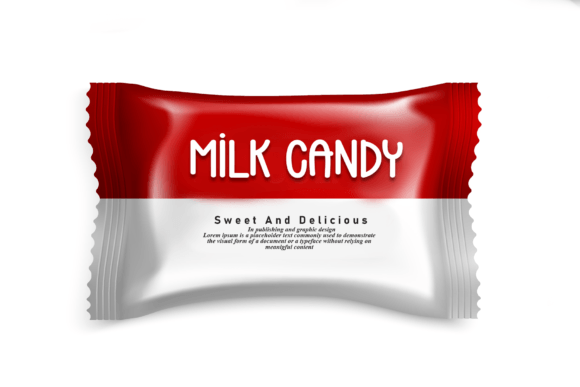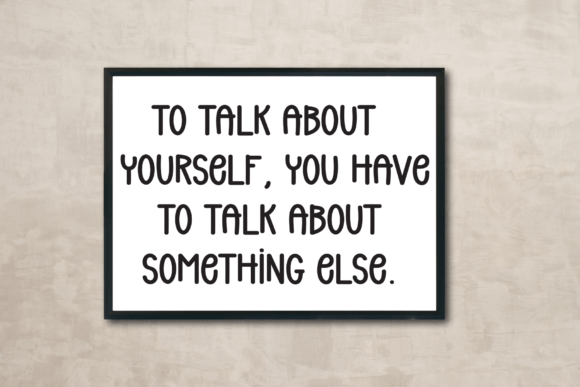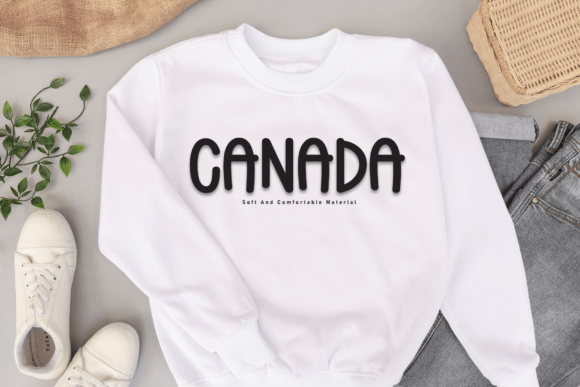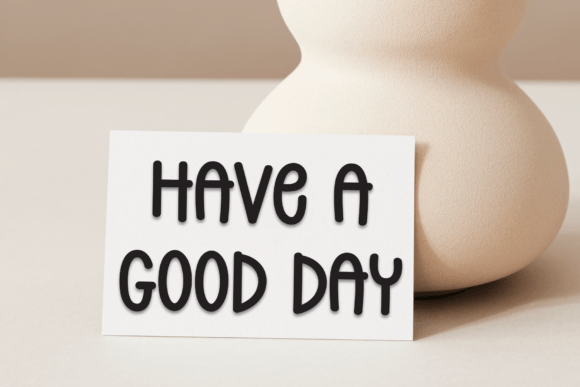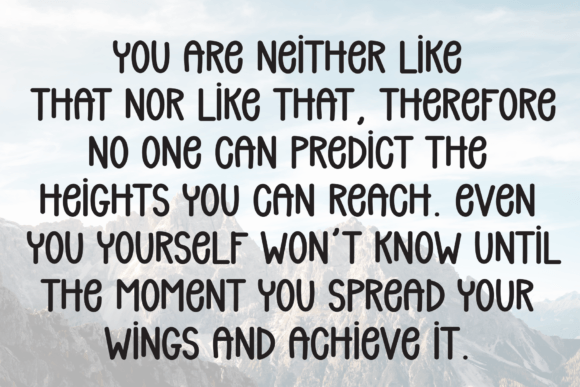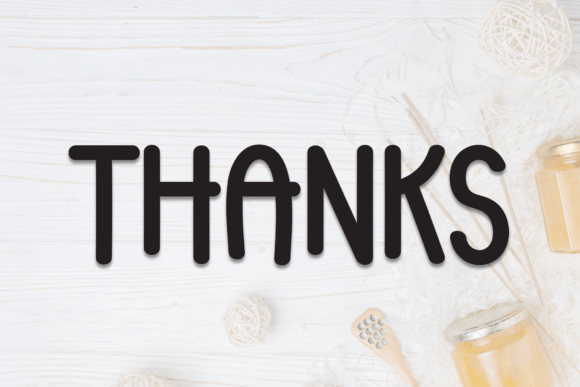
Introduction to Honey Boho Font
Immerse yourself in the expressive charm of our unique handwritten display font – a delightful fusion of sweet and friendly strokes.
Perfect for embellishing wedding invitations, greeting cards or any design craving a dash of whimsy, this enchanting typeface is designed to add a playful touch to your creative expressions .
Key Features of Honey Boho Font